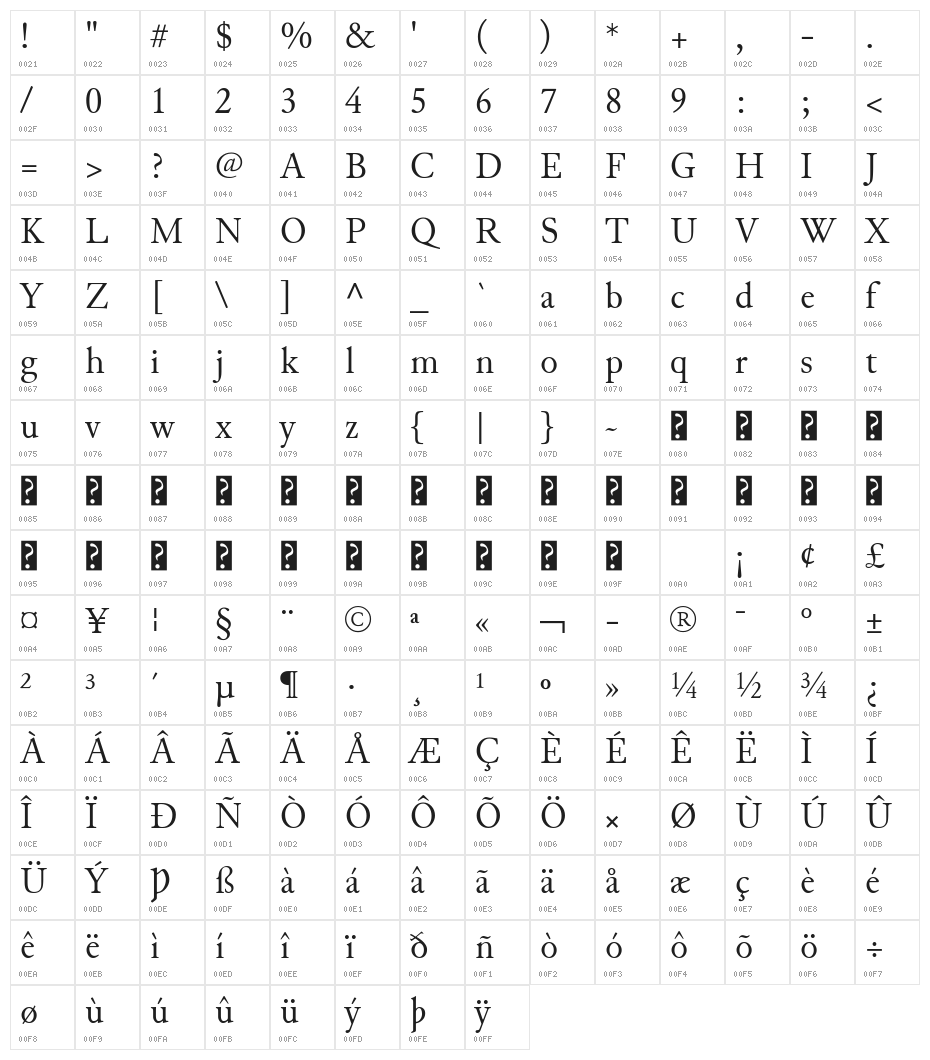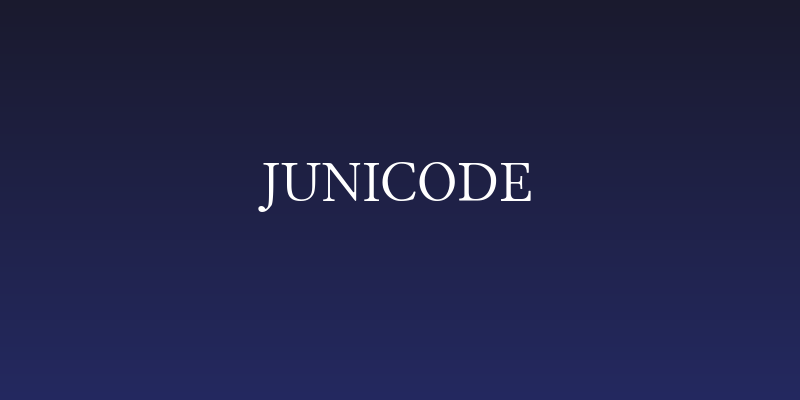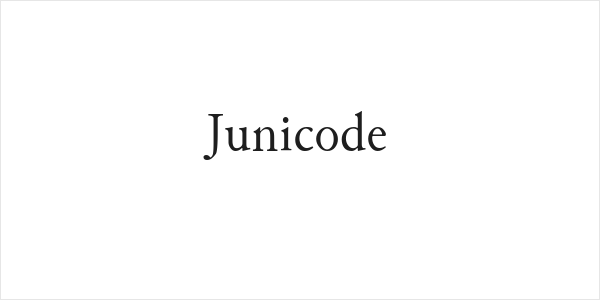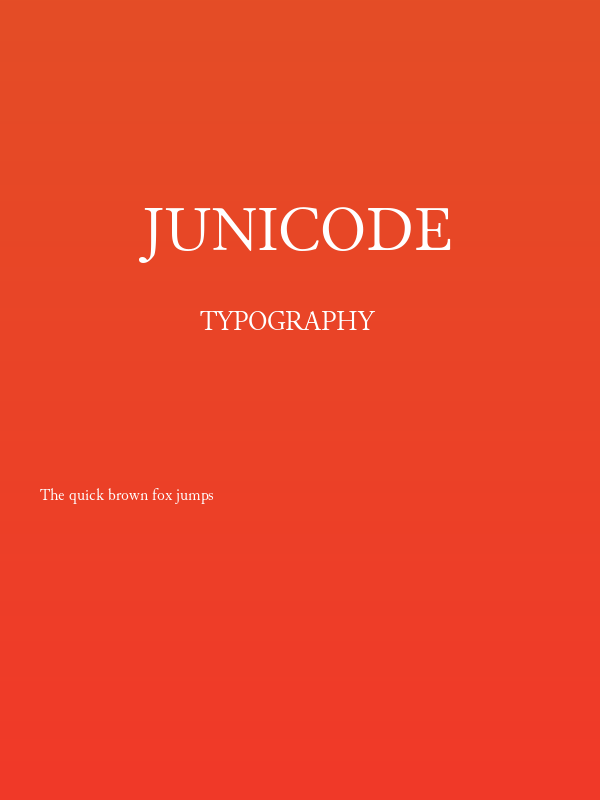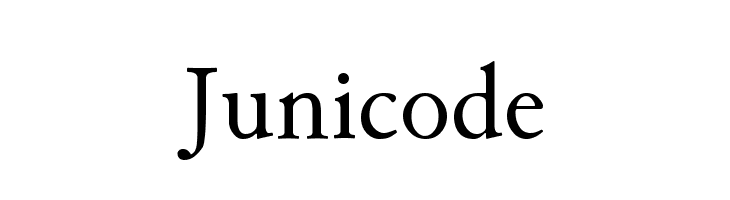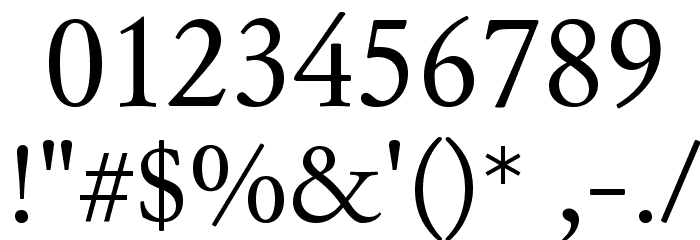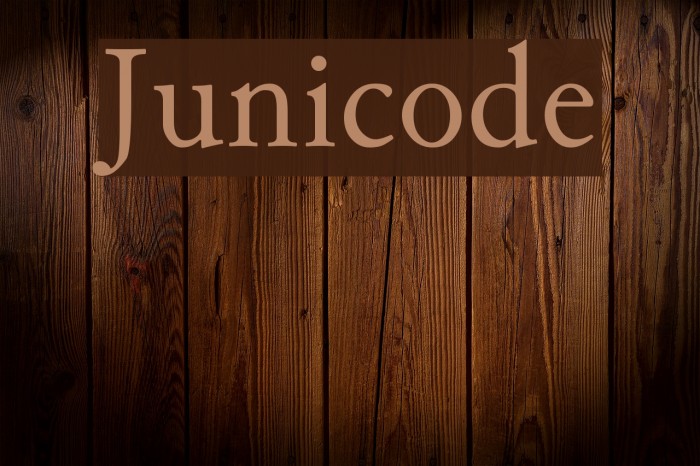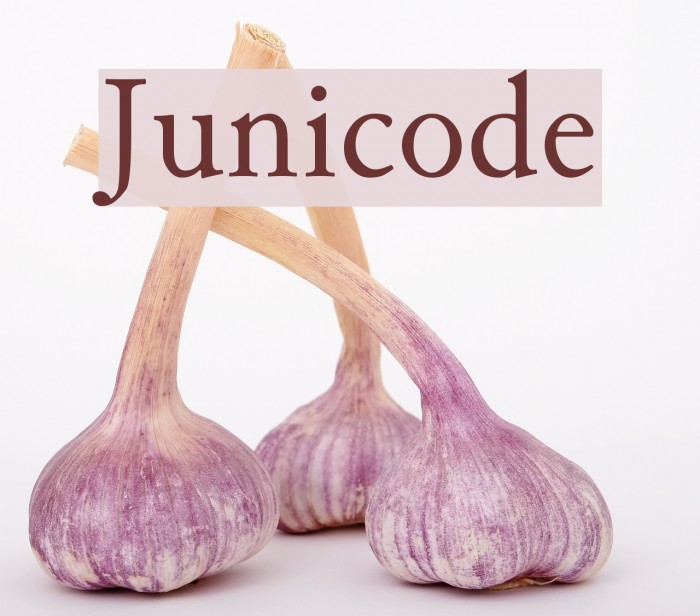
Junicode Font
Junicode Description
This typeface exudes a classic and scholarly aura, reminiscent of historical texts and academic publications. It features elegant serifs and a balanced structure, offering a timeless appeal. The uppercase letters are stately and well-proportioned, while the lowercase characters maintain a harmonious flow, enhancing readability. The numerals are distinct and clear, making them suitable for both textual and numerical data presentation. Special characters are crafted with precision, adding to the font's versatility. Overall, it combines traditional aesthetics with modern functionality, making it ideal for a variety of applications.
| Overall Style | Classic |
| Use Case | Body text, Headlines, Academic papers |
| Proposed Projects | Ideal for academic publications, historical documents, book typesetting, and formal invitations. |